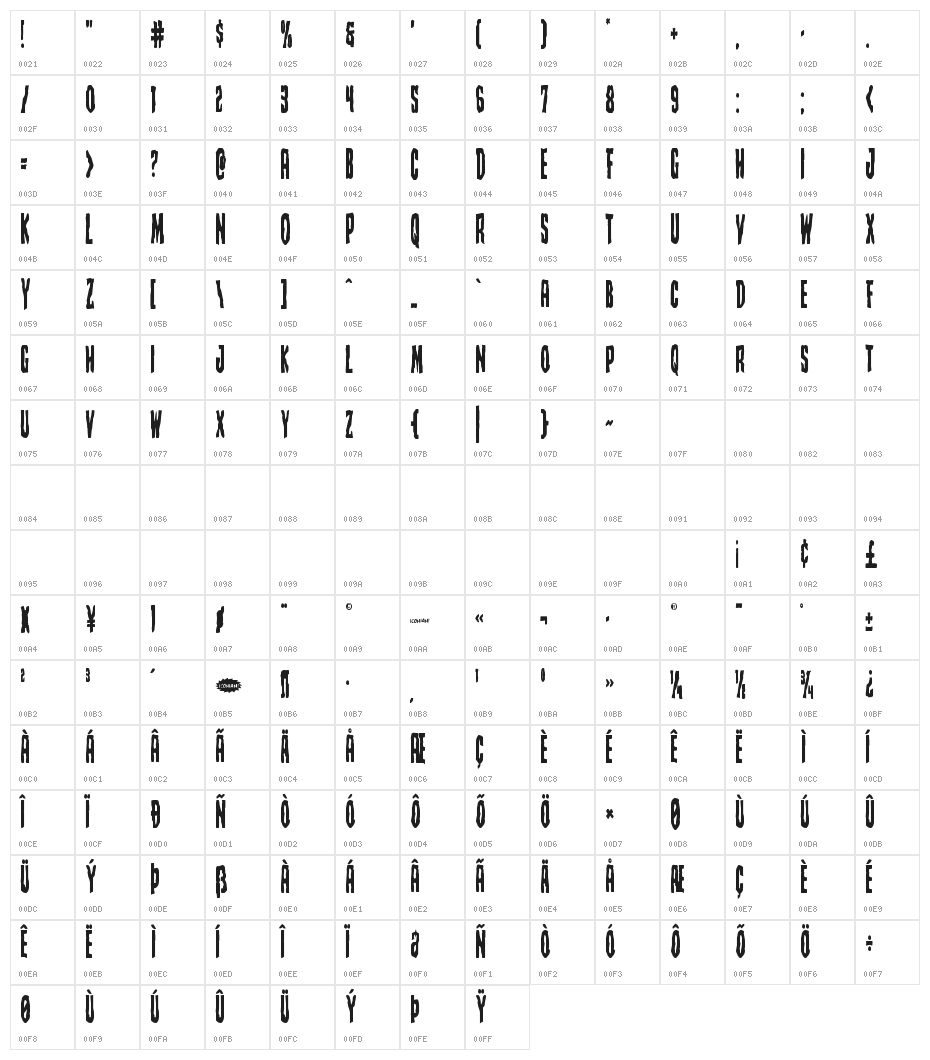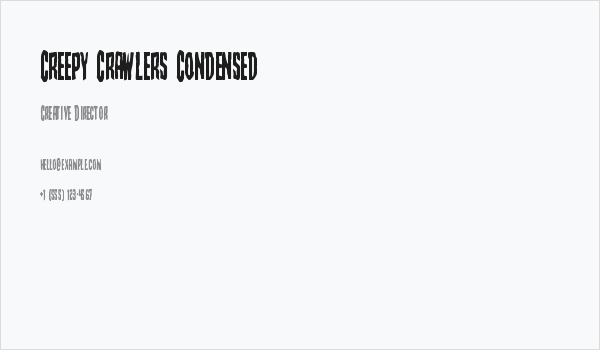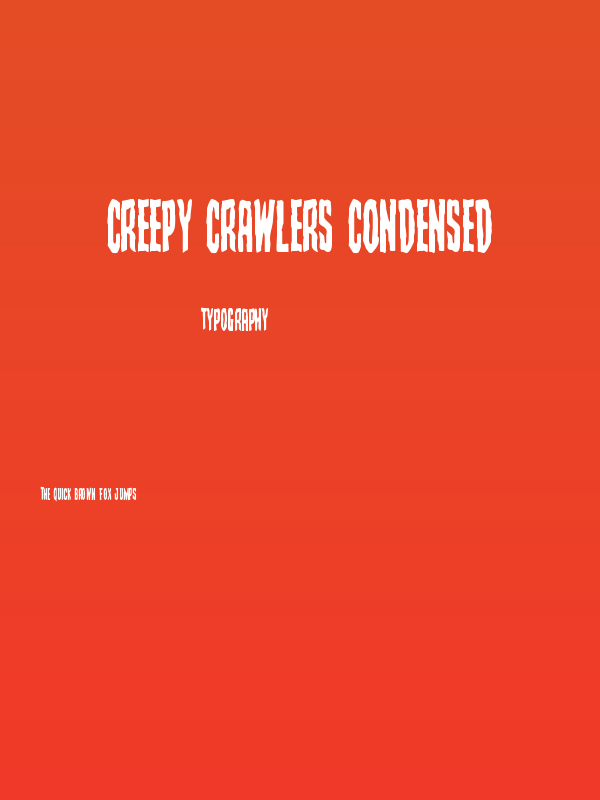
Creepy Crawlers Condensed Font
Creepy Crawlers Condensed Description
This font features a unique and eerie design, characterized by its condensed and irregular letterforms. The strokes are uneven, giving each character a slightly distorted and unsettling appearance. The uppercase and lowercase letters maintain a consistent style, with jagged edges and varying thickness that contribute to its creepy aesthetic. The numbers and special characters follow the same design principles, ensuring a cohesive look across all glyphs. This font is perfect for projects that require a spooky or horror-themed touch, making it ideal for Halloween designs, haunted house posters, or any creative work that aims to evoke a sense of mystery and suspense.
| Proposed Projects | Ideal for Halloween posters, horror movie titles, haunted house flyers, and spooky-themed event invitations. |